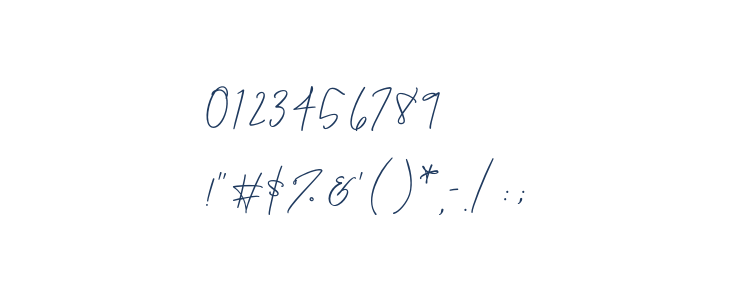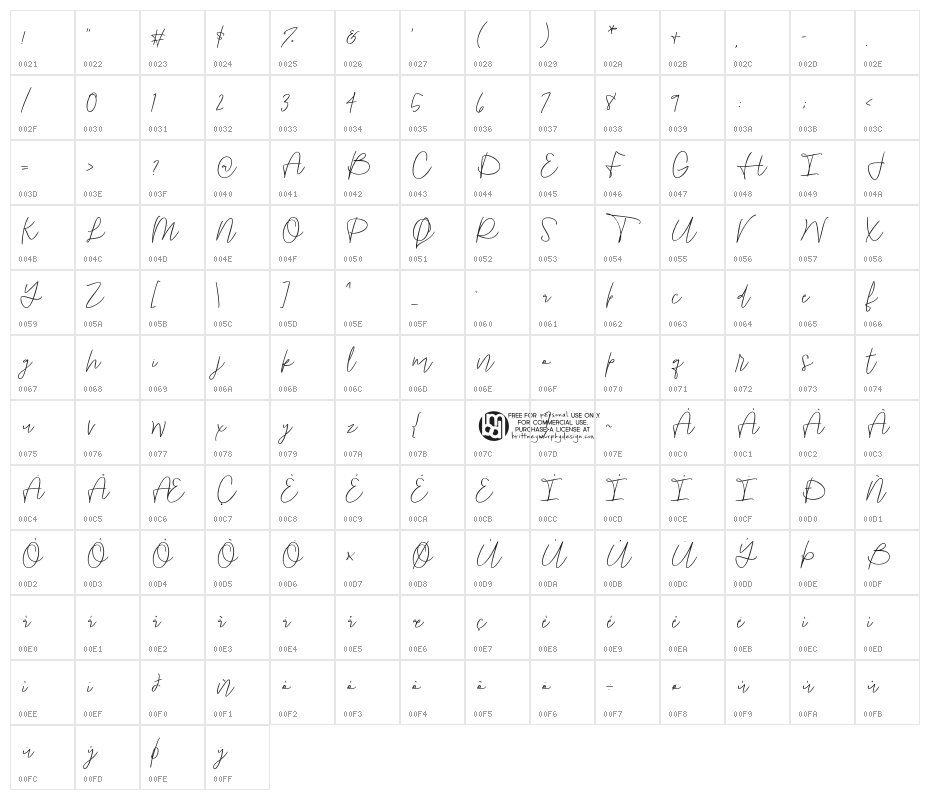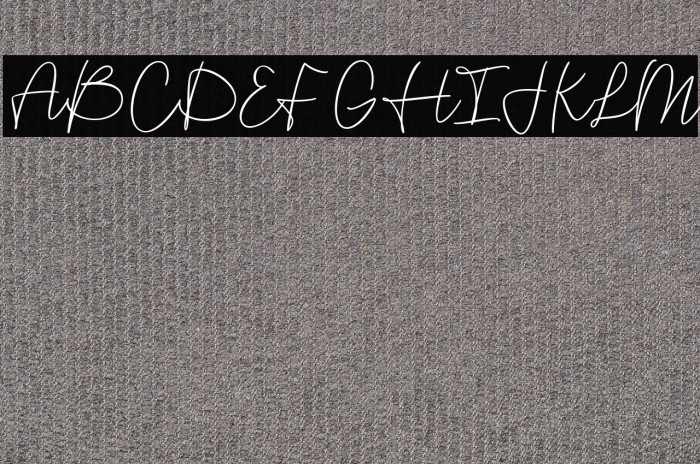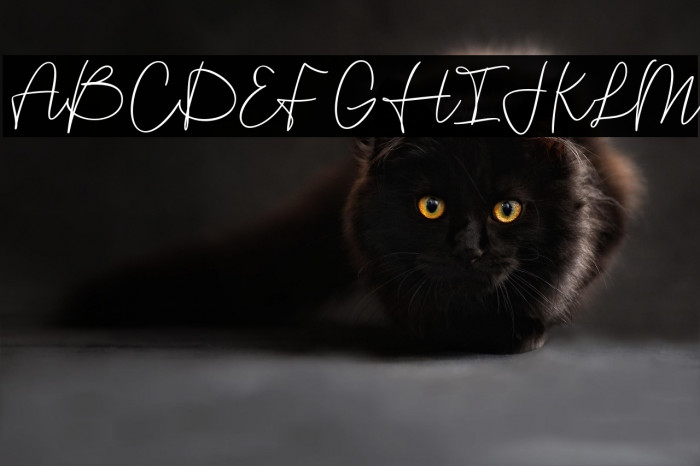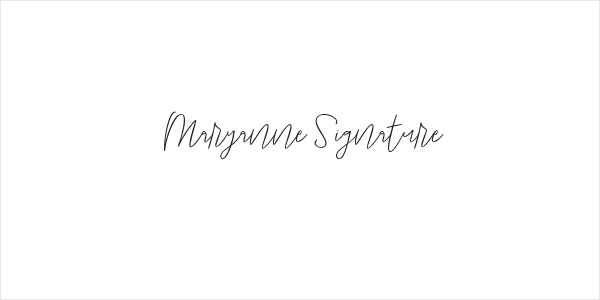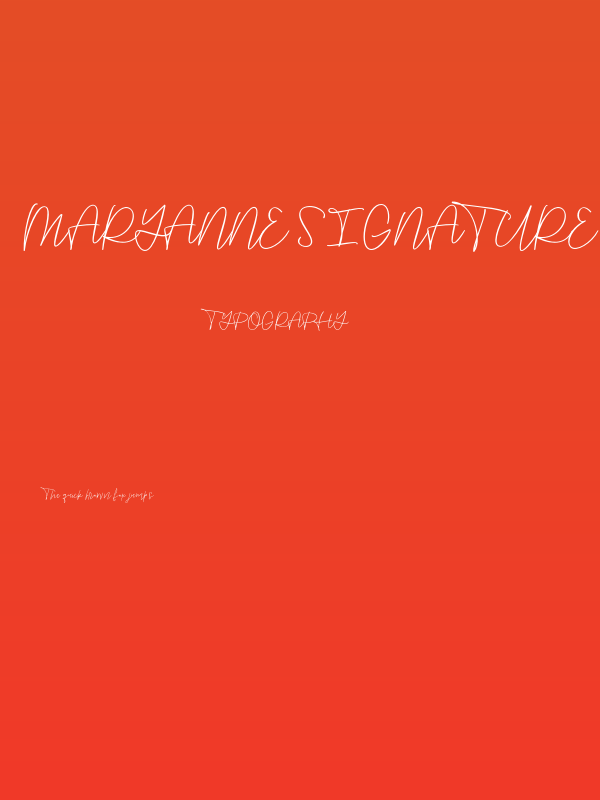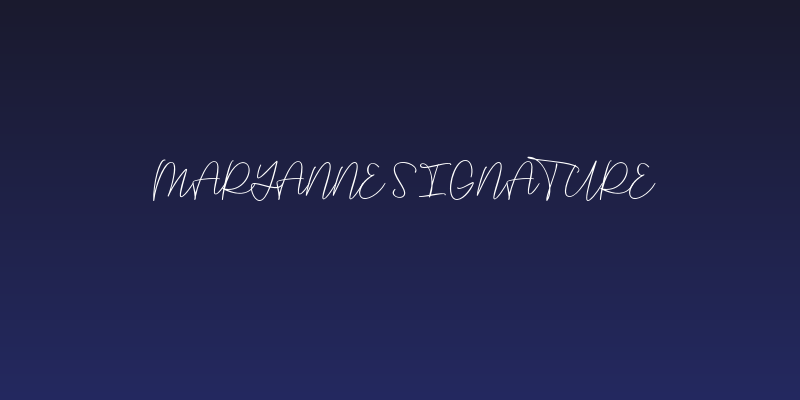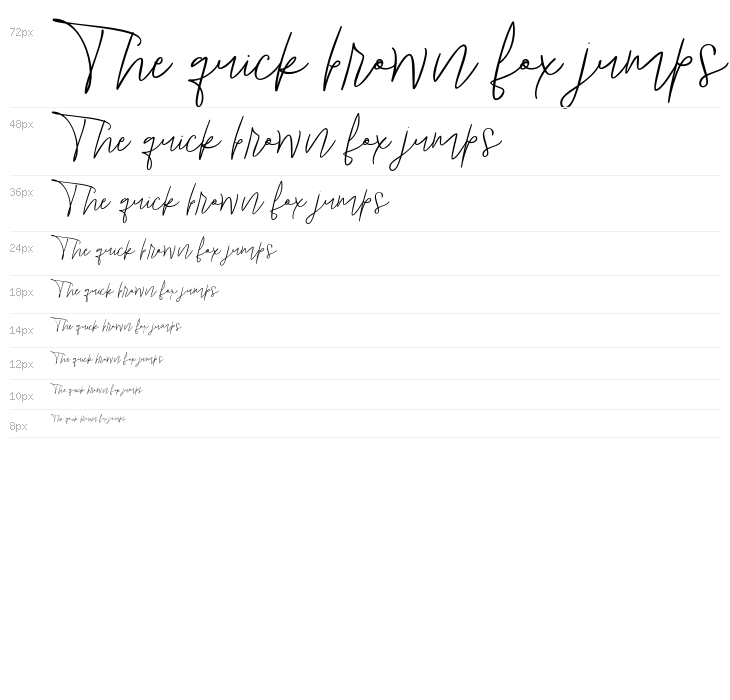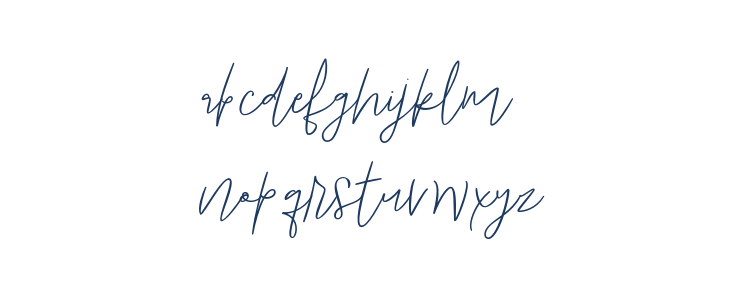
Maryanne Signature Font
Maryanne Signature Description
This font exudes a personal and elegant touch, reminiscent of a handwritten signature. The letters are fluid and connected, with a natural flow that mimics cursive handwriting. Each character is distinct yet harmoniously blends with others, creating a cohesive look. The uppercase letters are tall and slightly slanted, while the lowercase letters maintain a consistent baseline with occasional loops and flourishes. The numbers and special characters follow the same style, ensuring uniformity across all text. This font is perfect for adding a sophisticated and personal feel to any project.
| Overall Style | Elegant, Personal |
| Proposed Projects | Ideal for wedding invitations, personal branding, logos, and greeting cards. |